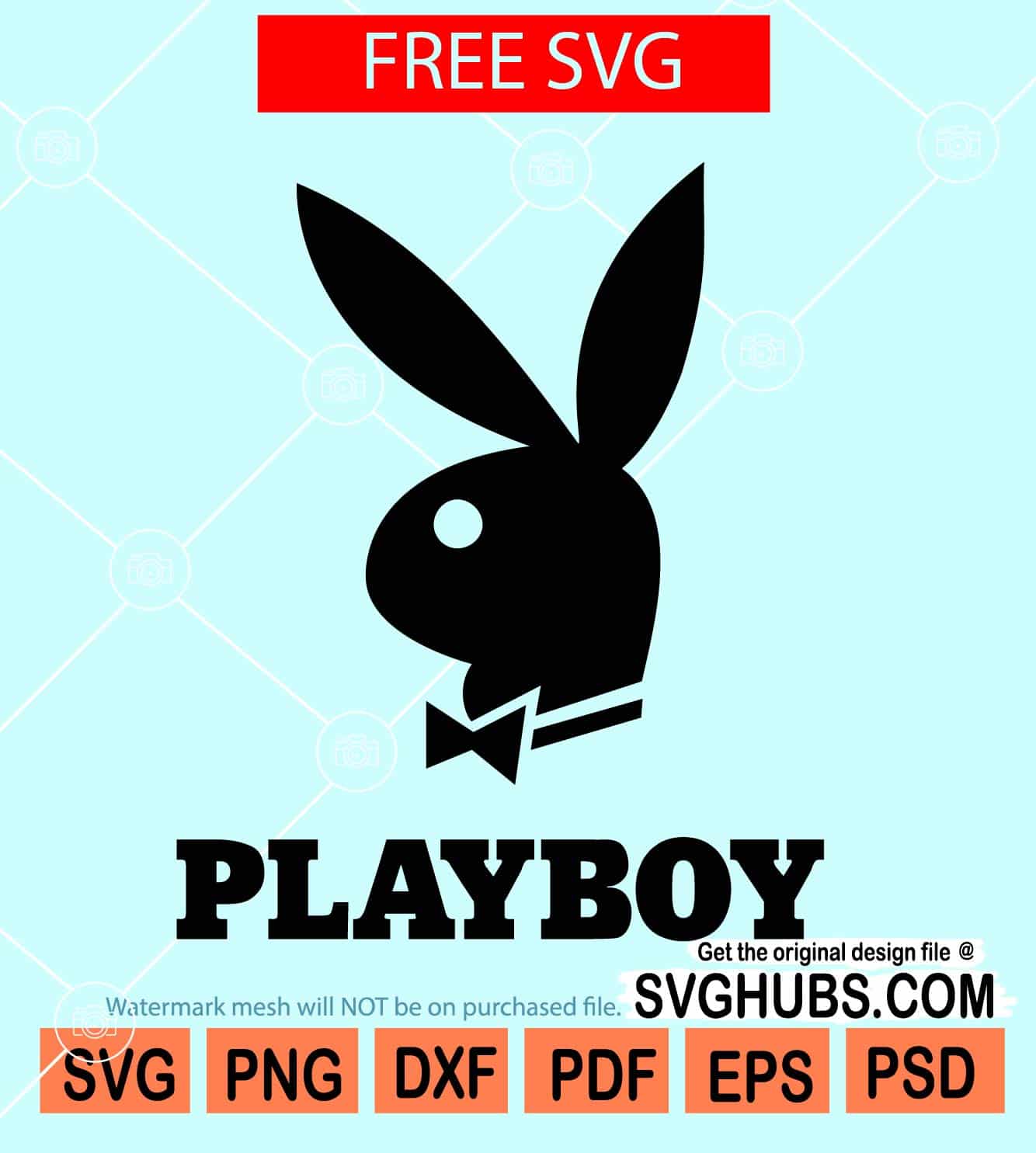
Playboy Font Free
Playboy Font Free - Registration plate uk by spideraysfonts. Web download the free font replicating the playboy title logo and many more at the original famous fonts! Web it’s free for personal use. Playboy font generator & download is available free at fontbolt. Web download playboy font free. This typeface is fully compatible with both pc and mac. Try our text generator and create cool. Web here you can download yourself a copy of the playboy font for free. Enter your text, choose a font from the drop down list, and. With its clean lines and modern look, the playboy font is sure to make your text stand out.
This typeface is fully compatible with both pc and mac. Enter your text, choose a font from the drop down list, and. Web it’s free for personal use. Web download playboy font free. Try our text generator and create cool. Registration plate uk by spideraysfonts. With its clean lines and modern look, the playboy font is sure to make your text stand out. Web download the free font replicating the playboy title logo and many more at the original famous fonts! Web here you can download yourself a copy of the playboy font for free. Web playboy fonts | fontspace.
Web it’s free for personal use. Registration plate uk by spideraysfonts. With its clean lines and modern look, the playboy font is sure to make your text stand out. Web here you can download yourself a copy of the playboy font for free. Web download the free font replicating the playboy title logo and many more at the original famous fonts! Try our text generator and create cool. Web download playboy font free. Playboy font generator & download is available free at fontbolt. Web playboy fonts | fontspace. Enter your text, choose a font from the drop down list, and.
Web playboy fonts | fontspace. Playboy font generator & download is available free at fontbolt. Web download playboy font free. Enter your text, choose a font from the drop down list, and. With its clean lines and modern look, the playboy font is sure to make your text stand out.
With its clean lines and modern look, the playboy font is sure to make your text stand out. Web playboy fonts | fontspace. Registration plate uk by spideraysfonts. Web it’s free for personal use. Web download the free font replicating the playboy title logo and many more at the original famous fonts!
Try our text generator and create cool. Web playboy fonts | fontspace. Web here you can download yourself a copy of the playboy font for free. Playboy font generator & download is available free at fontbolt. With its clean lines and modern look, the playboy font is sure to make your text stand out.
Web playboy fonts | fontspace. Try our text generator and create cool. Web it’s free for personal use. Playboy font generator & download is available free at fontbolt. With its clean lines and modern look, the playboy font is sure to make your text stand out.
With its clean lines and modern look, the playboy font is sure to make your text stand out. Web download playboy font free. Enter your text, choose a font from the drop down list, and. Playboy font generator & download is available free at fontbolt. Try our text generator and create cool.
Registration plate uk by spideraysfonts. Web here you can download yourself a copy of the playboy font for free. Playboy font generator & download is available free at fontbolt. Web playboy fonts | fontspace. This typeface is fully compatible with both pc and mac.
Web download playboy font free. Registration plate uk by spideraysfonts. This typeface is fully compatible with both pc and mac. Web it’s free for personal use.
With its clean lines and modern look, the playboy font is sure to make your text stand out. Web download the free font replicating the playboy title logo and many more at the original famous fonts! Web here you can download yourself a copy of the playboy font for free. Playboy font generator & download is available free at fontbolt.